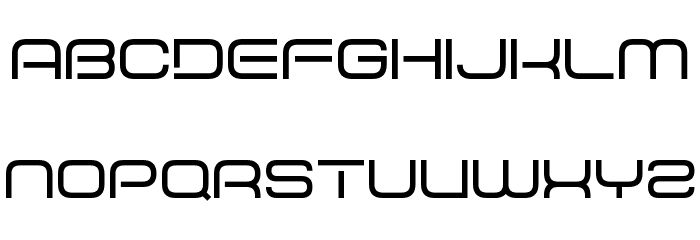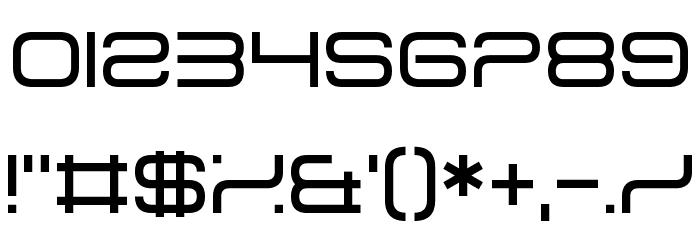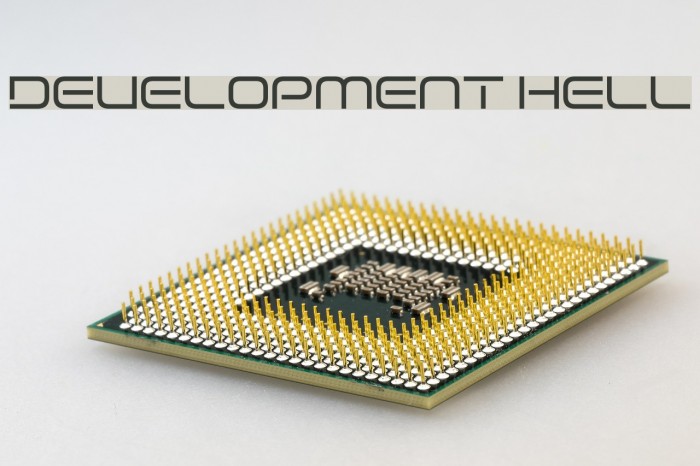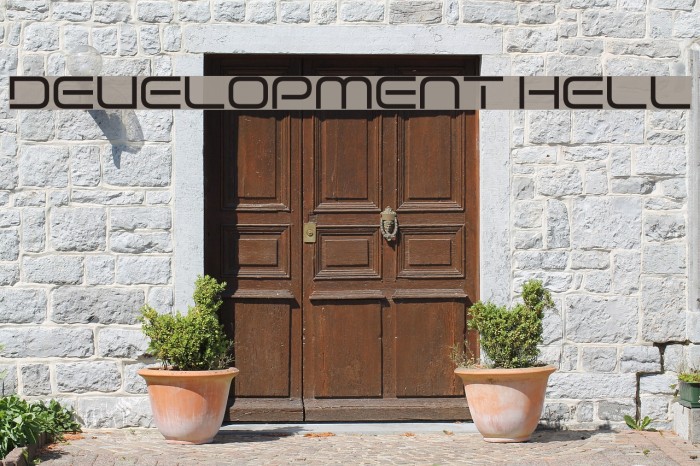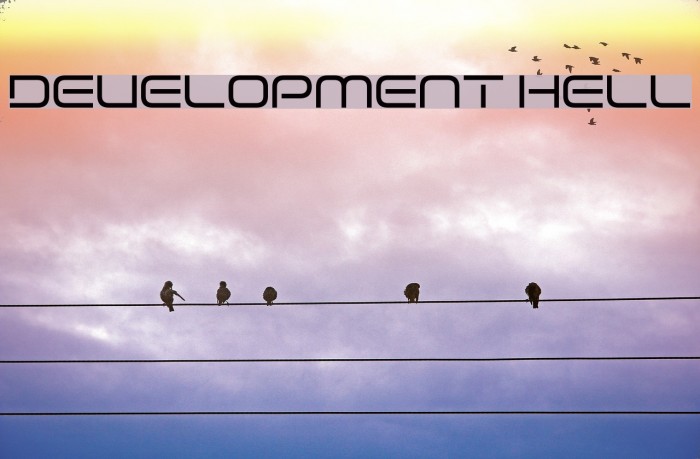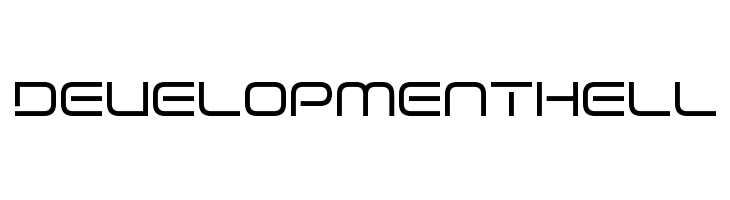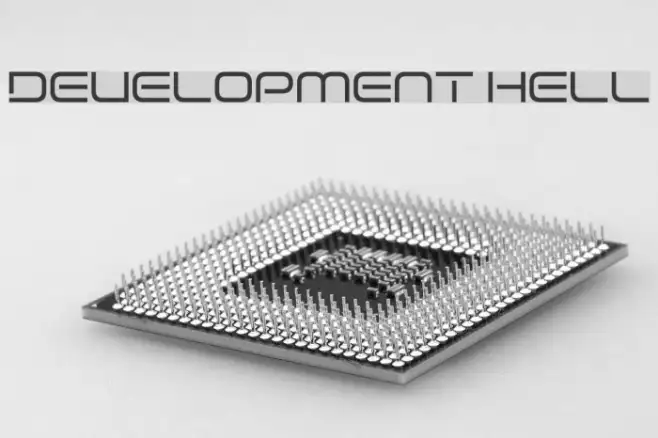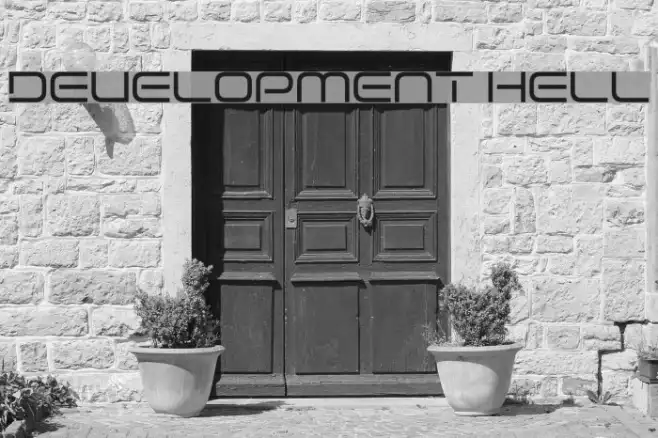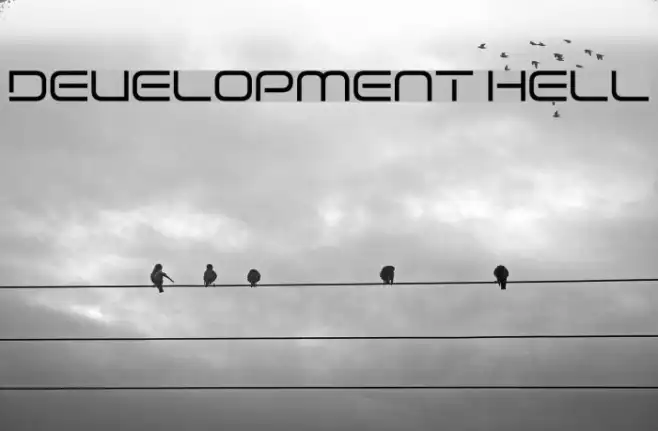
Development Hell Font
This font exhibits a modern and futuristic style with a geometric and minimalistic design. The characters are constructed with a consistent stroke width, giving it a clean and uniform appearance. The rounded edges and open apertures contribute to its sleek and contemporary look. The uppercase and lowercase letters maintain a cohesive design, with the lowercase mirroring the uppercase in structure. The numerals are distinct and align well with the overall aesthetic, ensuring readability. Special characters are designed to complement the letterforms, maintaining the same geometric and minimalistic approach.
A modern, geometric font with a sleek and minimalistic design.
- Proposed Projects: Ideal for technology branding, futuristic designs, digital interfaces, and modern advertising campaigns.
- Category: Sans-Serif
- Use Case: Logos, Headlines, Digital Interfaces